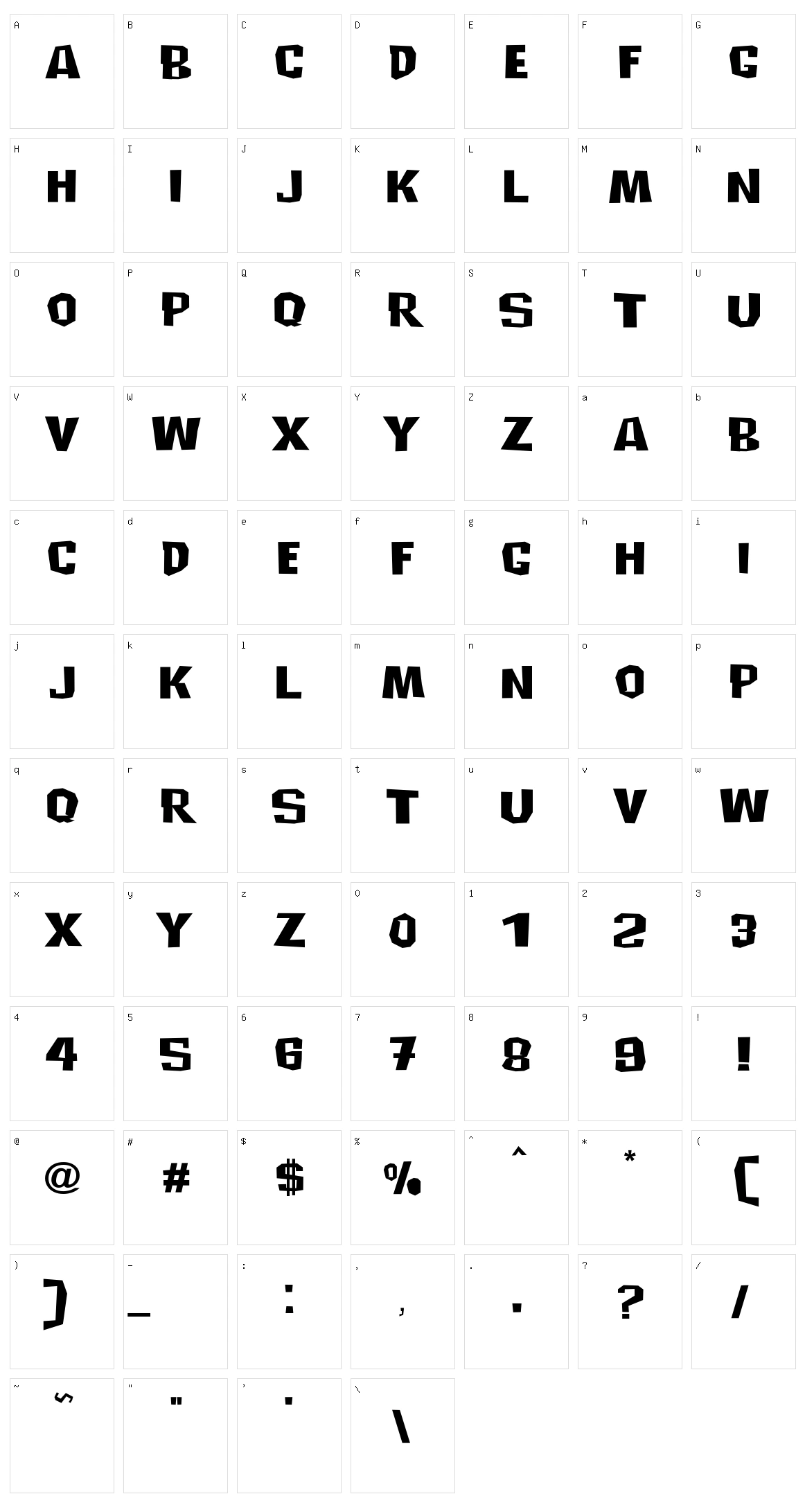
The free font Menace is carefully designed by Cristian Moura, showcasing a thoughtful balance of creativity and usability and falls under the Cartoon font style. When you download the ZIP file, it contains only 6.37 KB of font files, making it lightweight and quick to download. Please review the license details below to understand permitted usage and distribution rights. If license information is not available, we recommend using this font for personal projects only or contacting the author directly for commercial usage permissions.